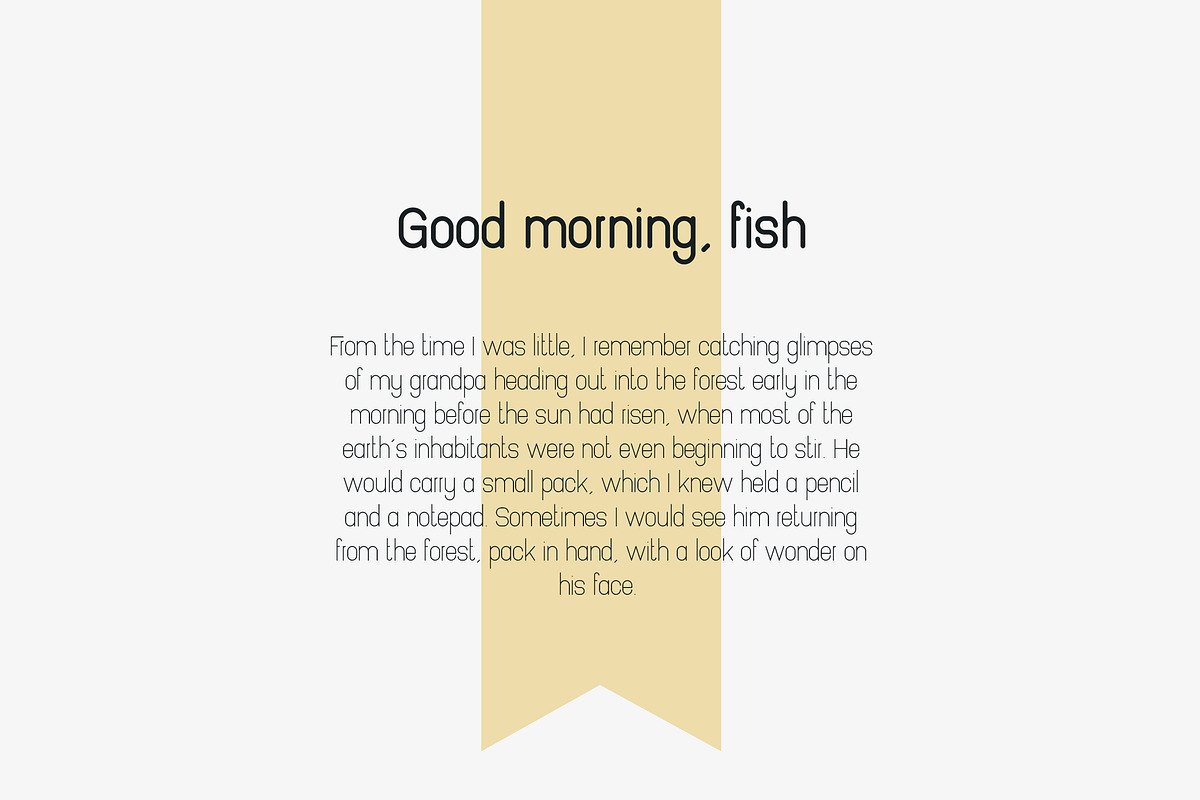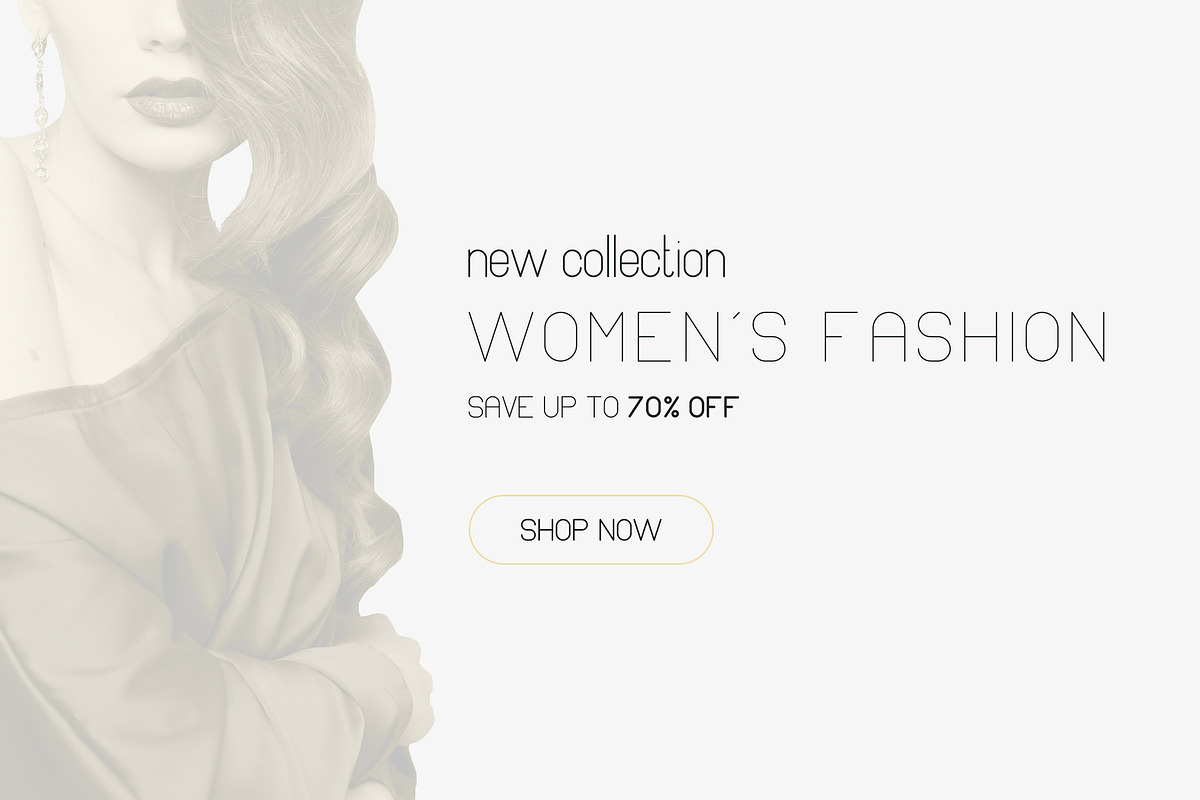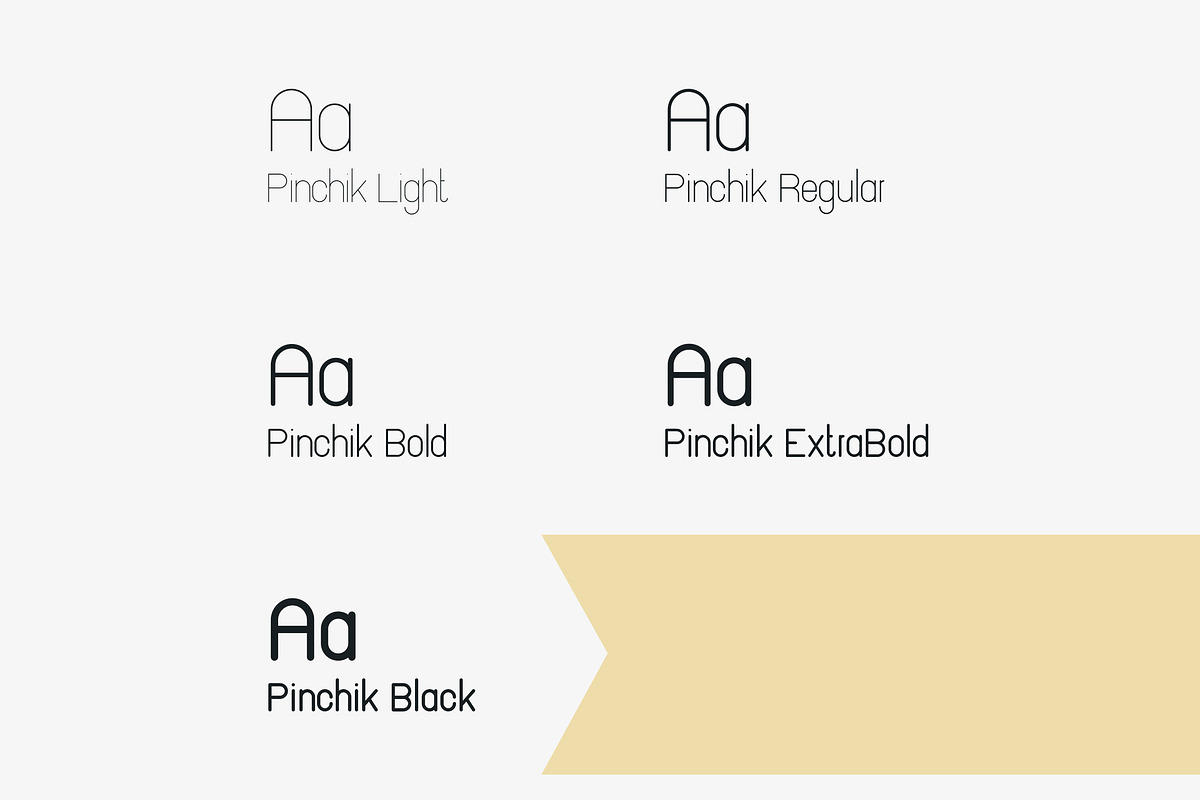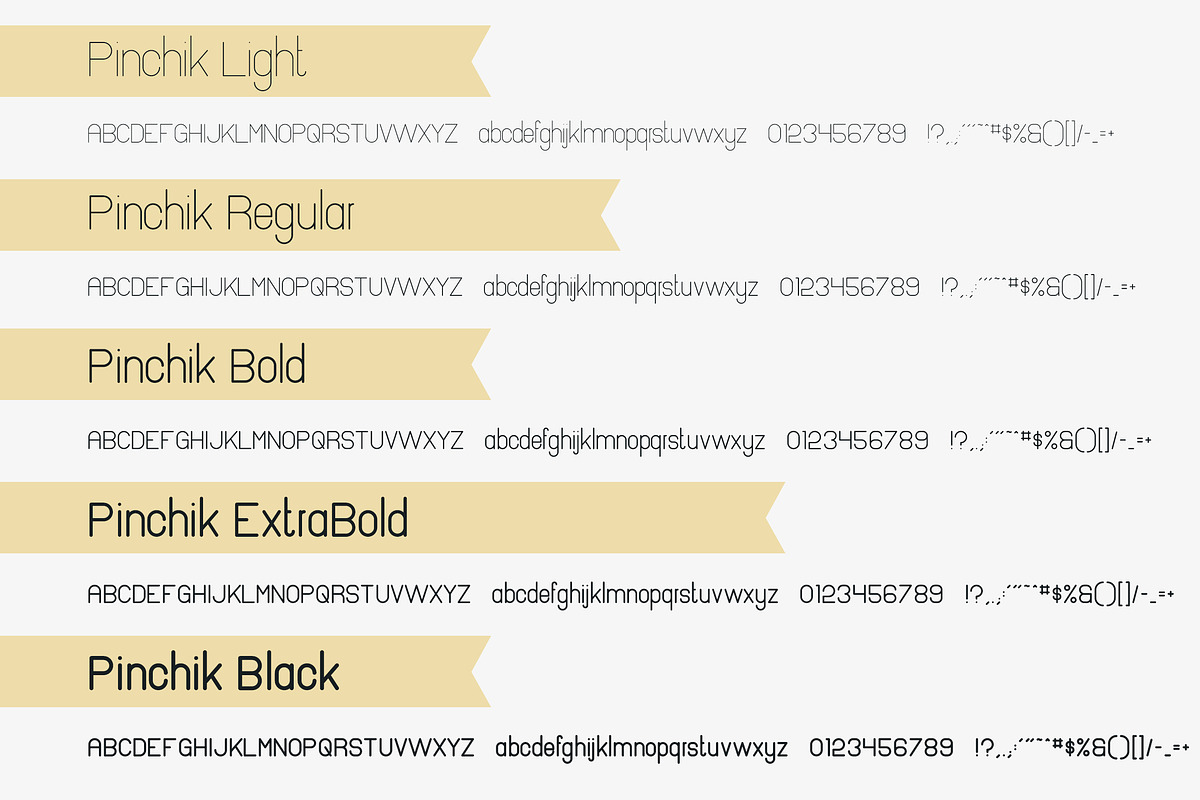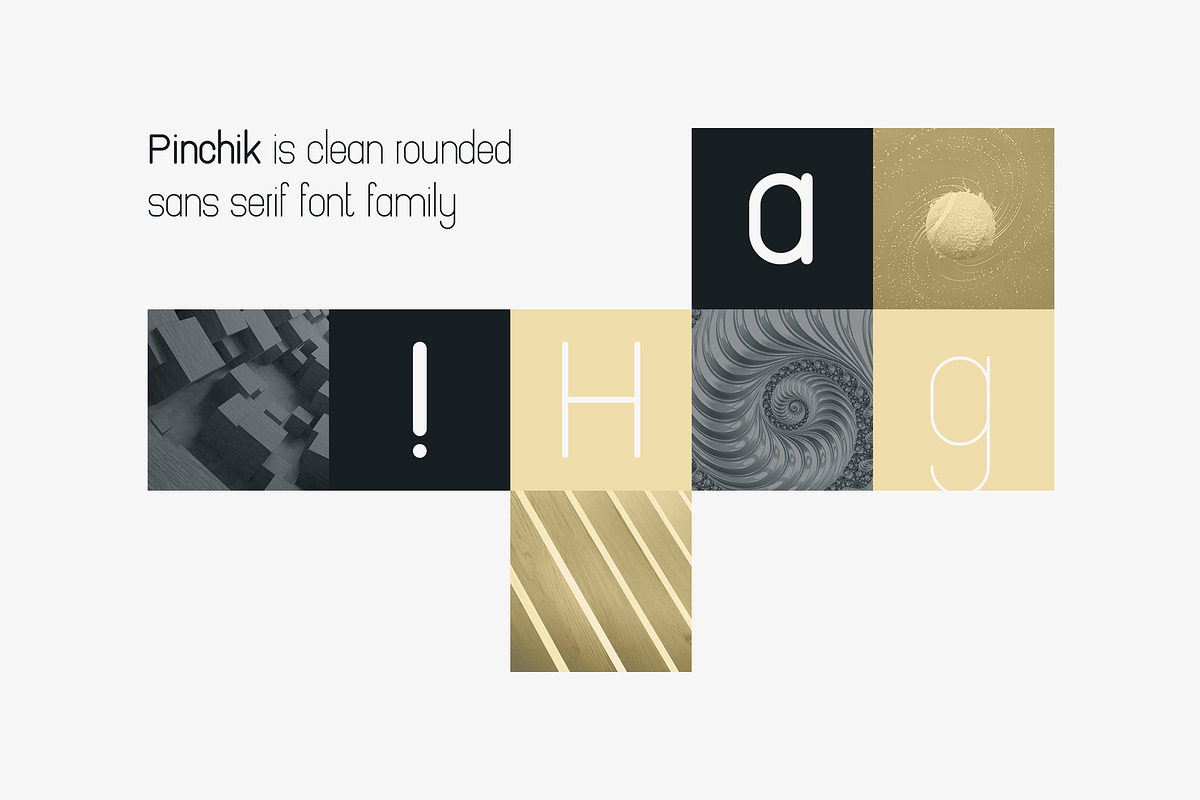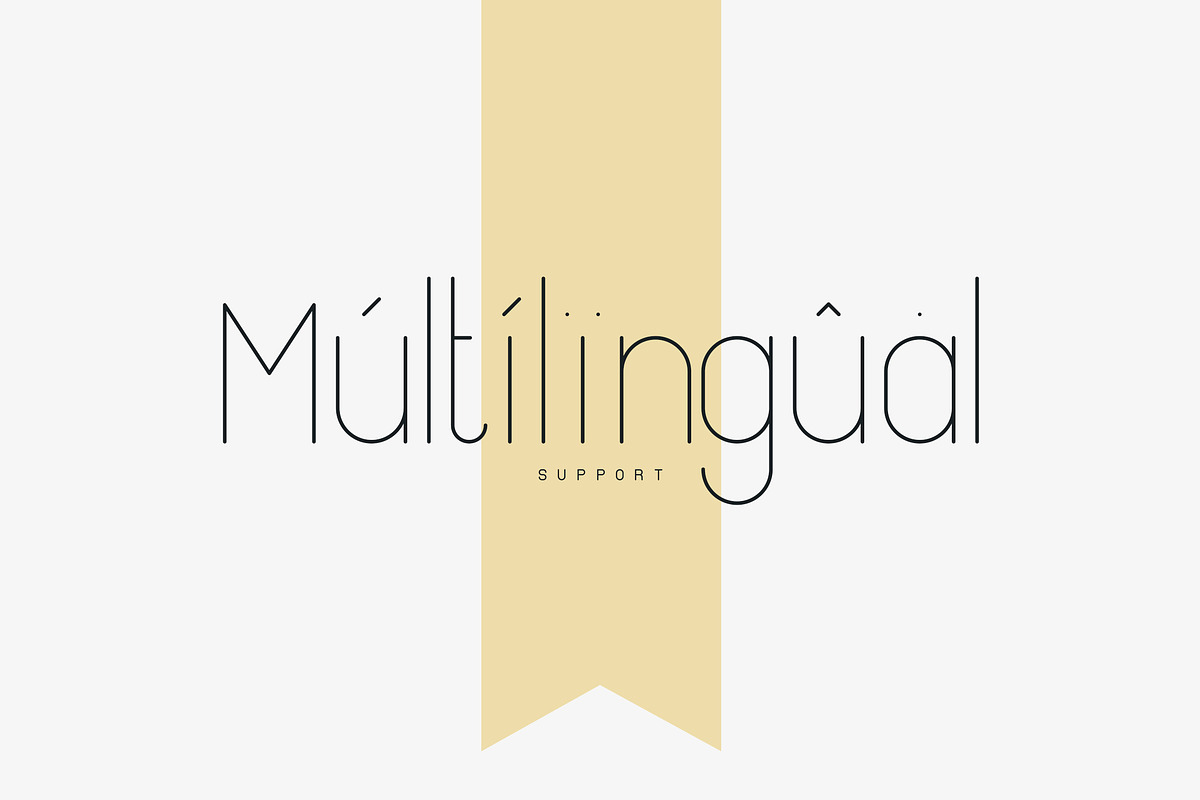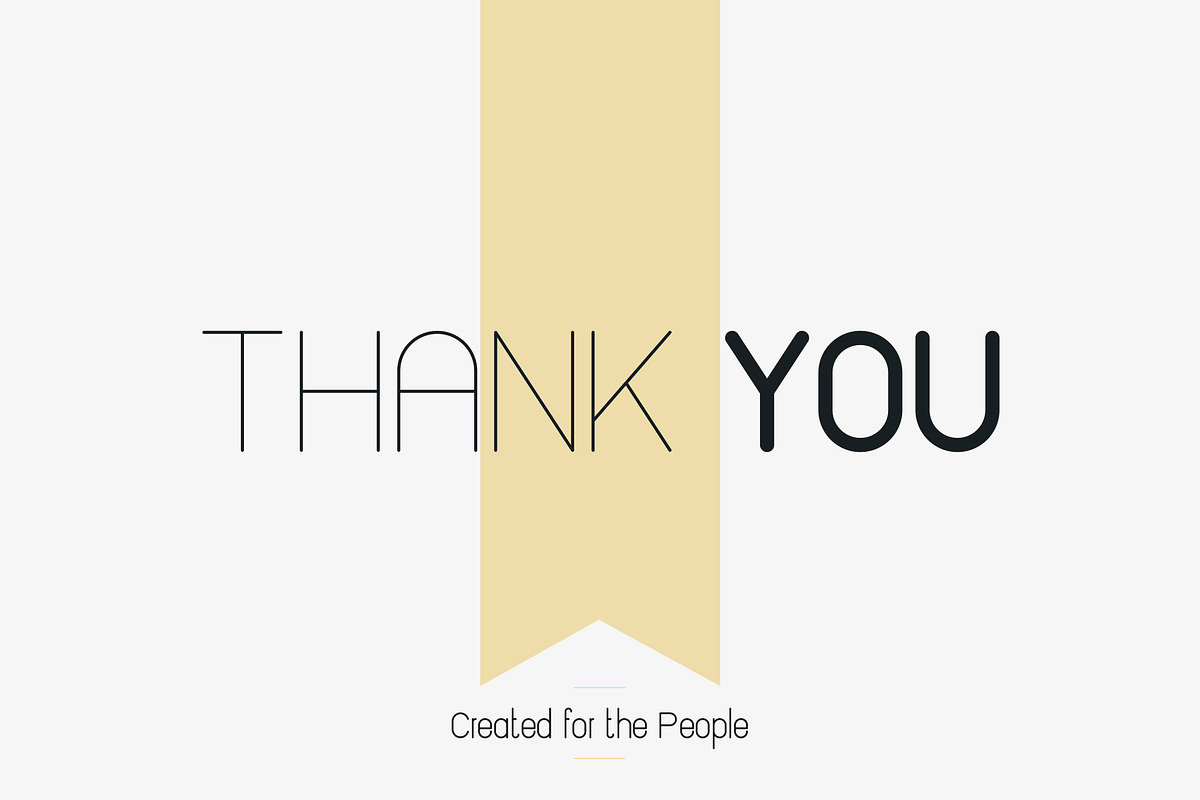
Pinchik Sans Family (5 fonts) -70%
Pinchik is clean, rounded sans serif typeface with 5 fonts and multilingual support. It's a very versatile font that works great in large and small sizes.
Pinchik is perfect for branding projects, home-ware designs, product packaging, magazine headers - or simply as a stylish text overlay to any background image.
- Pinchik Light
- Pinchik Regular
- Pinchik Bold
- Pinchik ExtraBold
- Pinchik Black